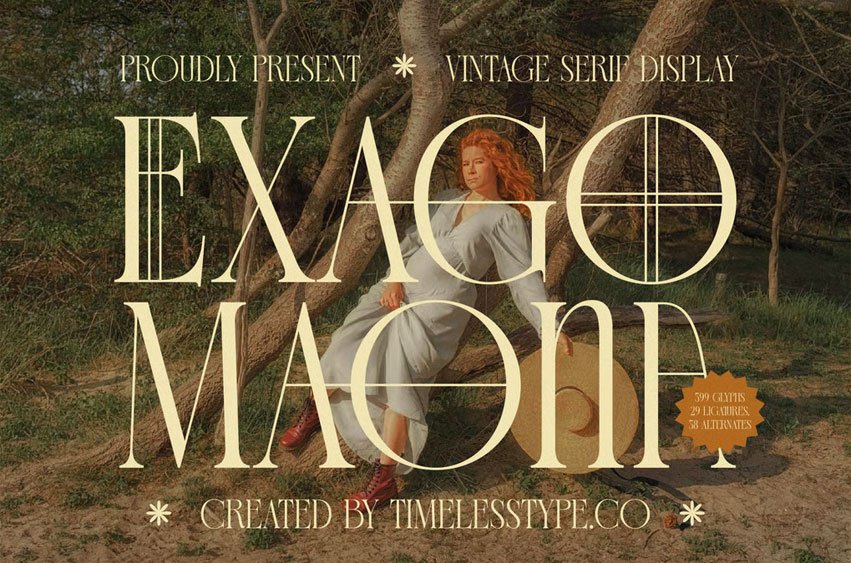
Exago Maona Font is a vintage serif display font with elegant proportions and artistic details. Featuring 29 ligatures and 58 alternates with a total of 599 glyphs, it delivers a refined, aesthetic perfect for editorial layouts, branding, packaging, and invitations.
Its tall letterforms and geometric precision create a sophisticated blend of modern design and classic vintage charm, making Exago Maone ideal for creative projects that demand elegance and character.